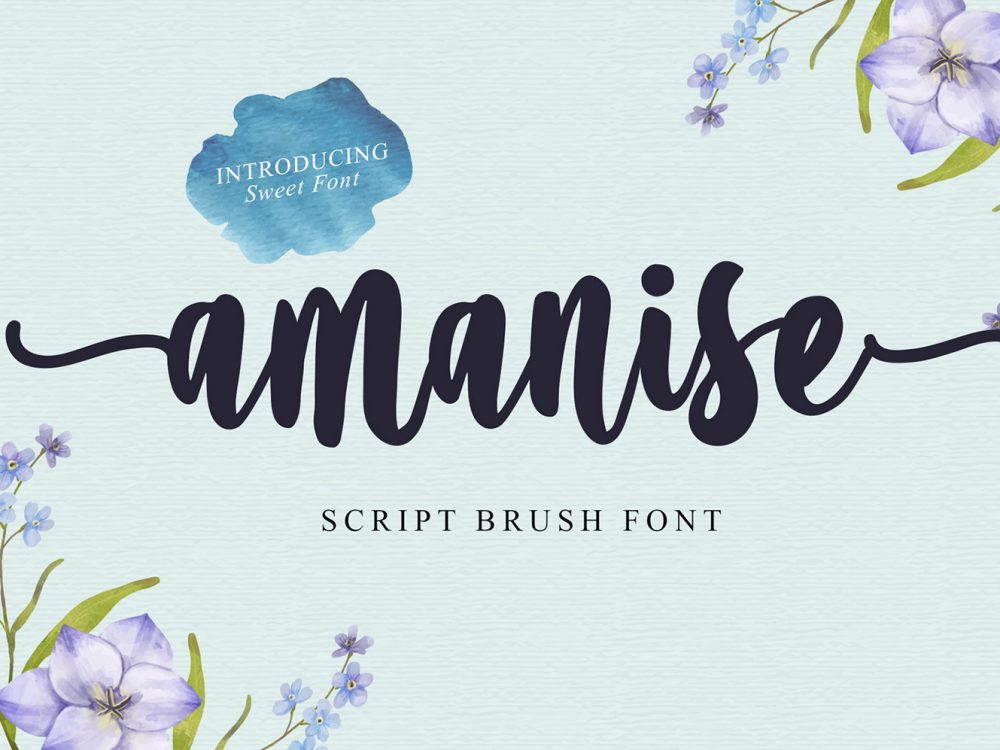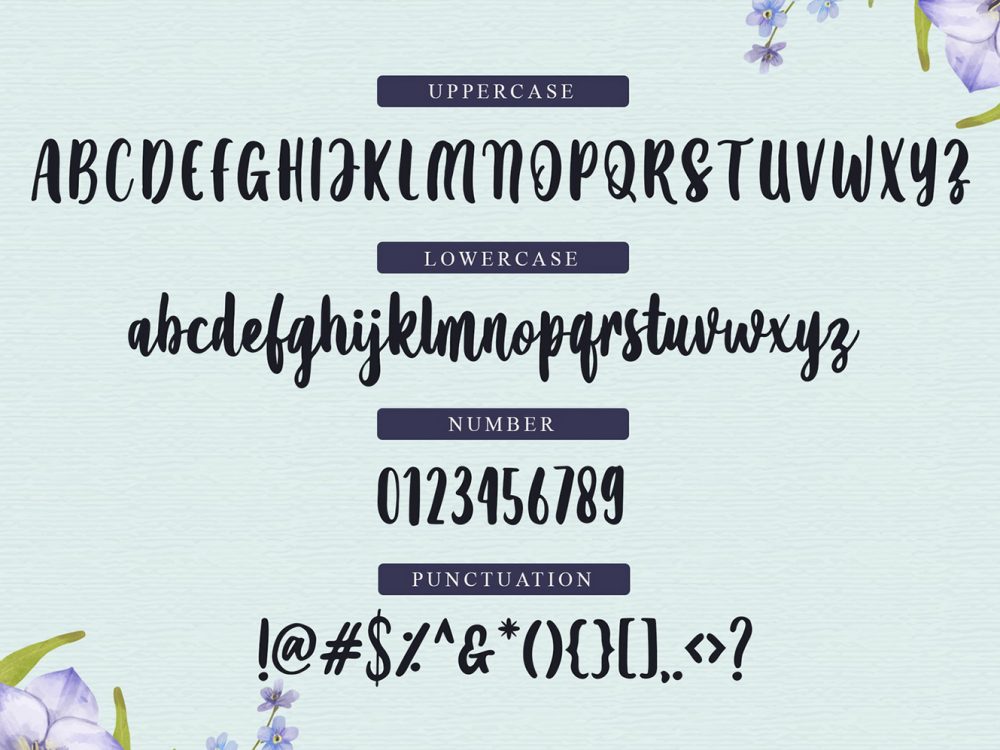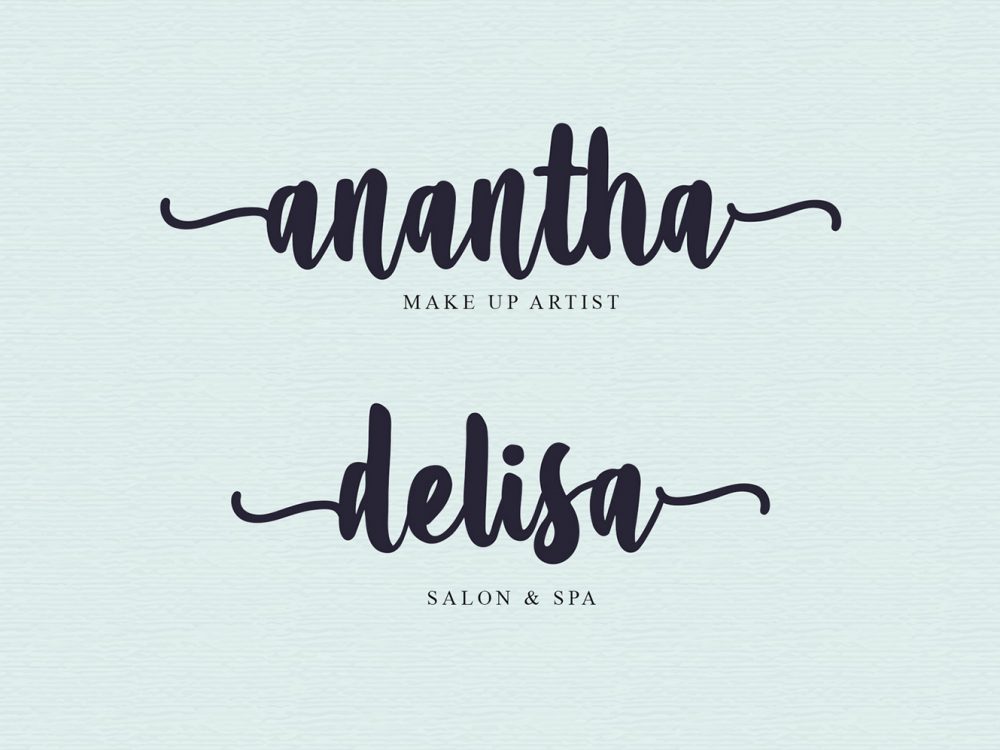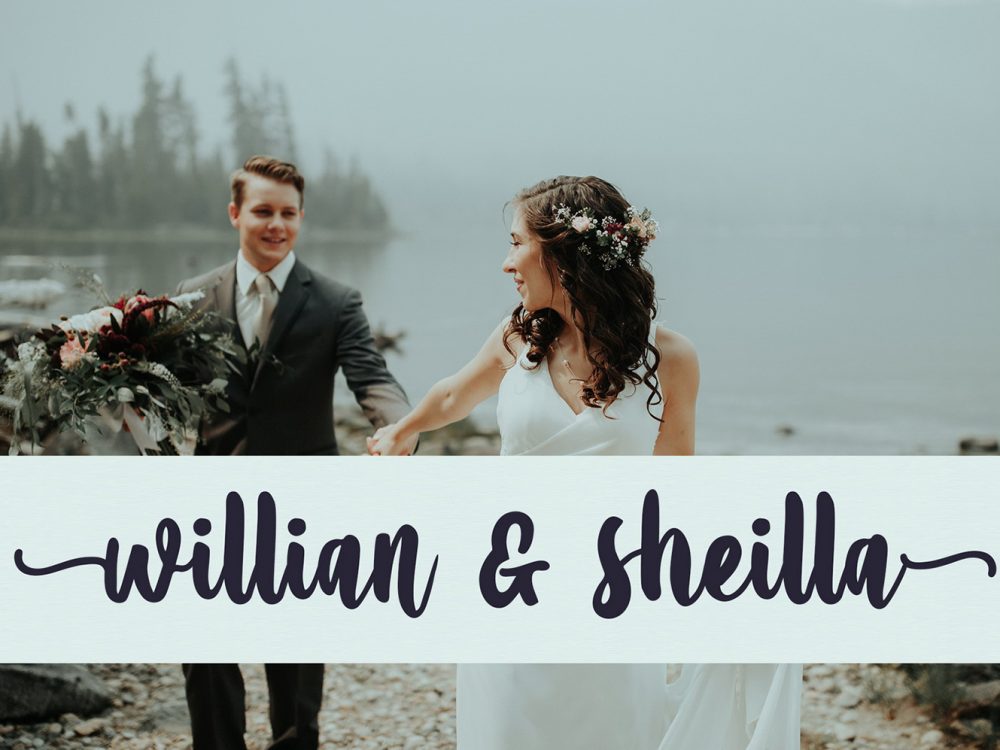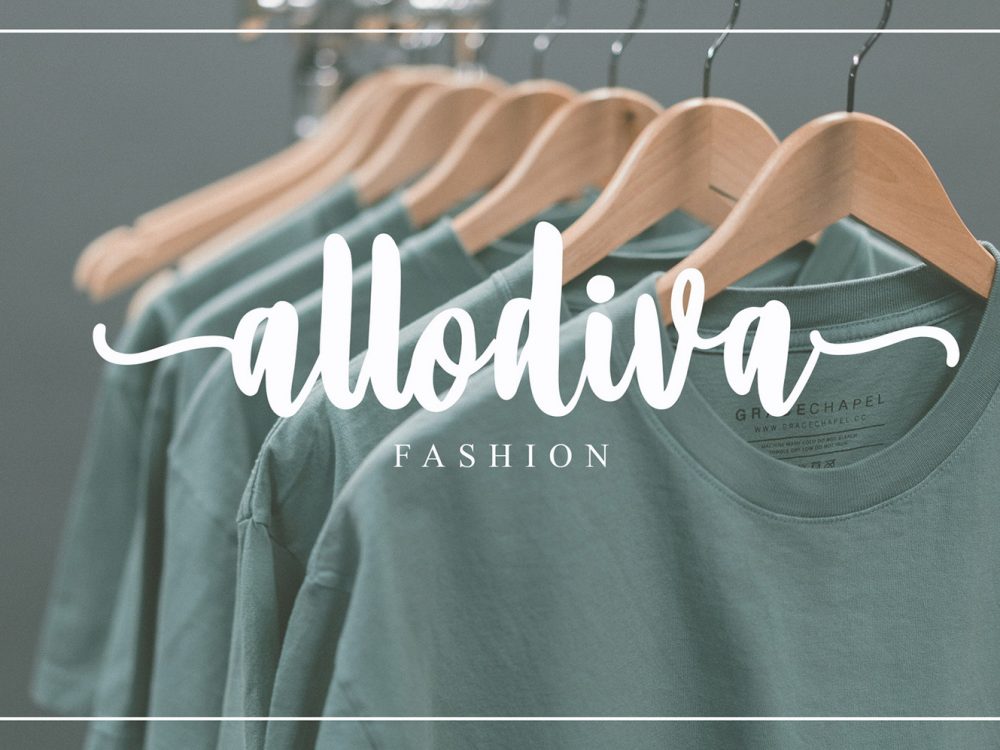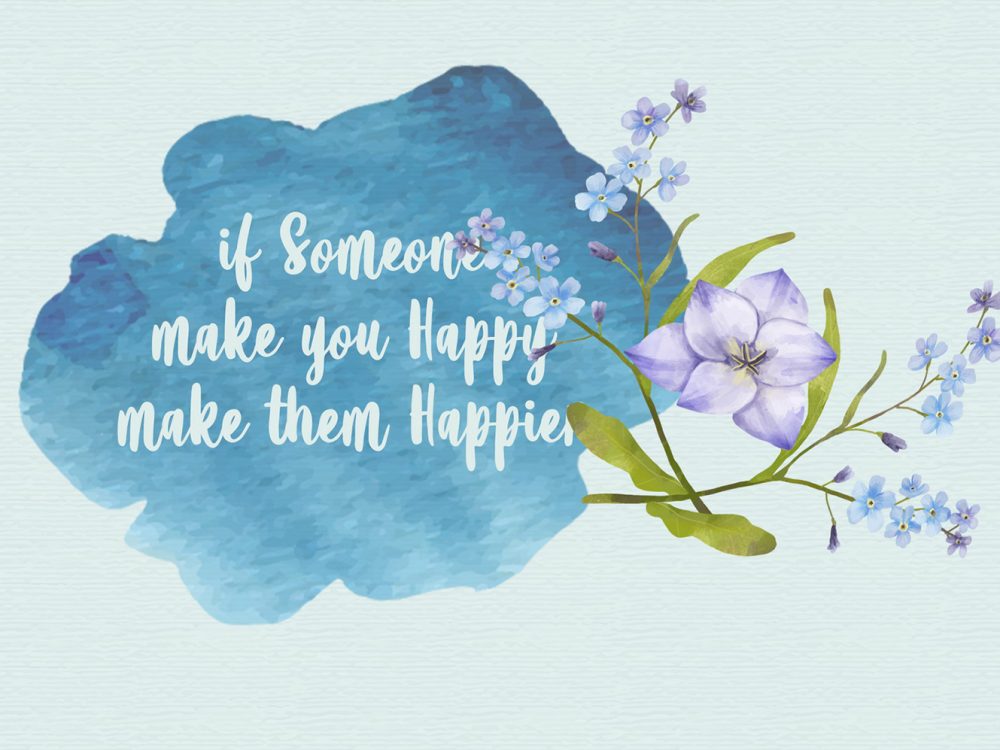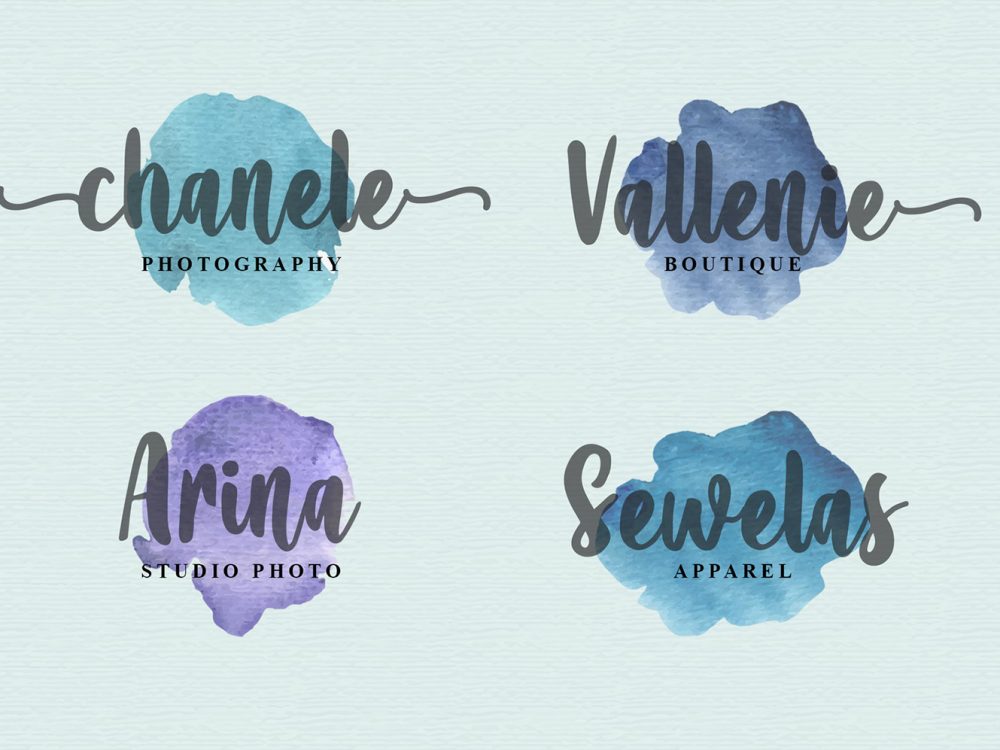
Amanise Script Font Demo
Amanise Script Font Demo is an interesting handwritten font that stands out in bold and mimics writing with a brush. You can use this font to create a variety of design projects such as posters, wedding cards, invitations, branding, flyers, prints, and more. Use this font to improve the quality and memorability of your projects. If you wish to access more features and use them for commercial work please buy the full version.